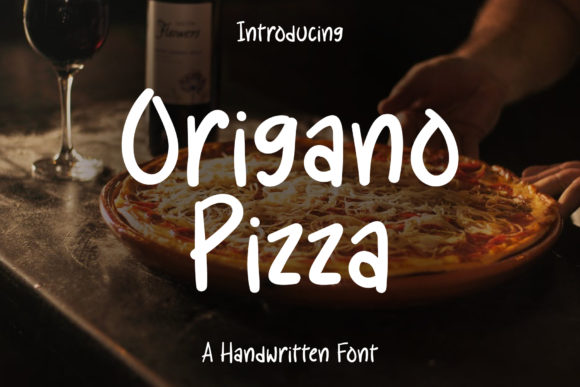
Open the doors to a world of creativity with Origano Pizza, the ultimate script font that captures the essence of handwritten charm. Its unique and quirky letterforms dance across the page, adding a touch of whimsy and personality to any project. With its exceptional readability, Origano Pizza is the perfect choice for newspaper text, ensuring your words stand out and captivate your audience.
Welcome to the world of Origano Pizza, a font that's as unique as the pizza it's named after. With its captivating handwritten style, this font will add a touch of playfulness and individuality to all your projects. Whether you're designing posters, invitations, or social media graphics, Origano Pizza will make your words sing.
Experience the magic of Origano Pizza, a font that combines the beauty of handwritten calligraphy with the precision of digital design. Created by the talented Wanida Toffy, this font is a masterpiece of typography, crafted with care and attention to detail. Trust Origano Pizza to add a touch of sophistication and elegance to your designs.